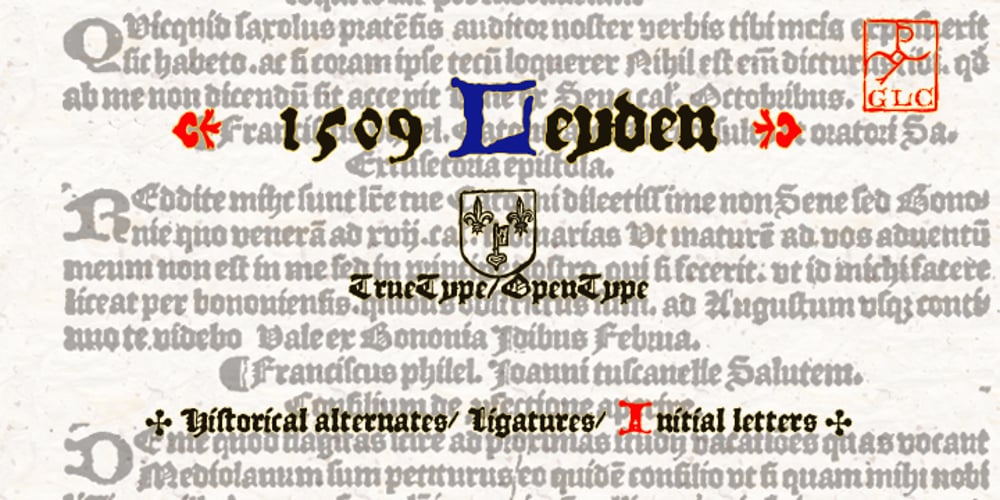
1509 Leyden
1509 Leyden font
1509 Leyden Font Family was designed by published by GLC. 1509 Leyden contains 1 styles and family package options. This script font was inspired by the type used in Leyden by Jan Seversz to print Breviores elegantioresque epistolae […], author Francesco Filfelo, circa 1509. The original font contains all lower case characters, except w, eth, thorn, lslash, oslash and so… and almost upper case. In addition, one set of small lombardic initials were also nearly complete. It take place instead of the Bold style (in only one package)offering a real and rare complete historical printing set… The original small “a” hight was 2,8 mm !, the upper case hight no more than nearly 5 mm, the initials hight almost 15 mm, covering nearly two lines. This font includes “long s”, naturally, as typically medieval and also a few ligatures, but not any variants. We have entirely recreated some characters, upper, lower and initials, to fill gaps. It is used as variously as web-site titles, posters and fliers design, publishing texts looking like ancient ones, or greeting cards, all various sorts of presentations, menus, certificates, as a very decorative, elegant and unusual font, besides its historical scrupulous reality… This font supports enlargement as well as small size.